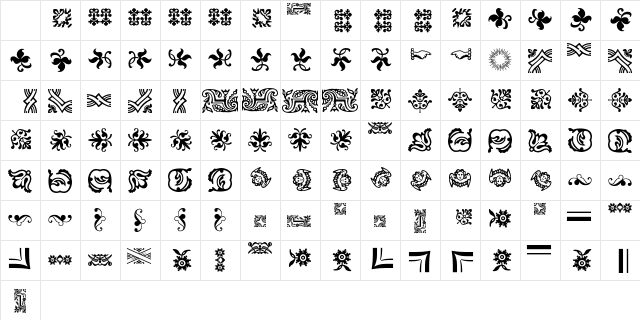
Complete Baroque Borders PT Version A glyph index. Displaying only characters natively supported by Baroque Borders PT Version A font.
Baroque Borders PT is a composed and adaptable typeface that performs quietly and consistently across a wide range of design contexts.